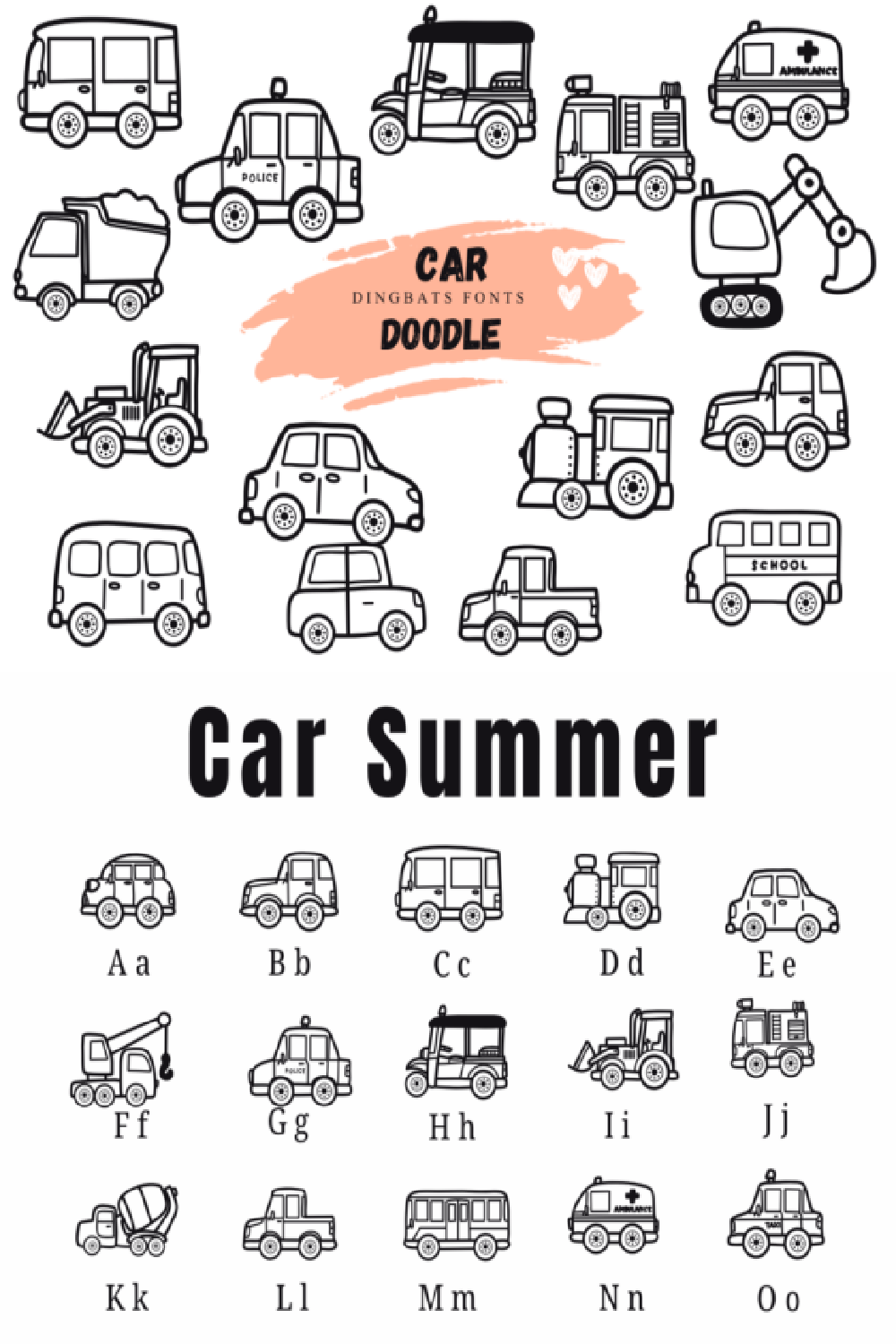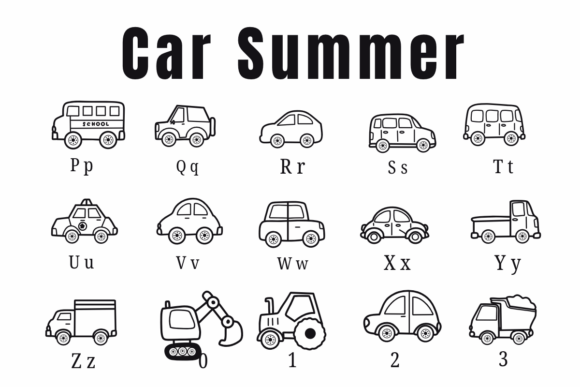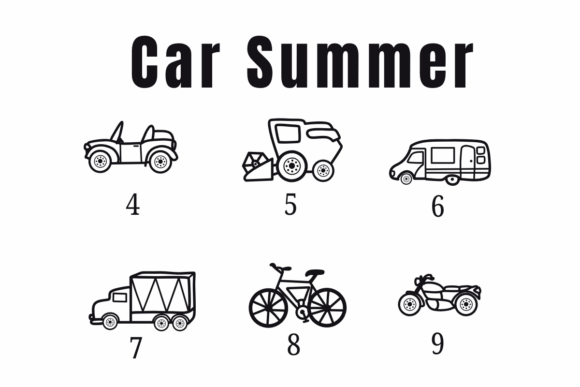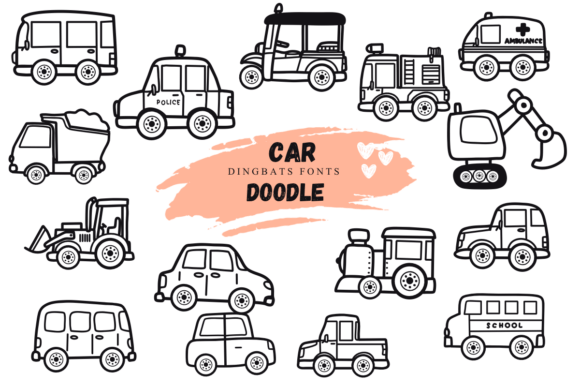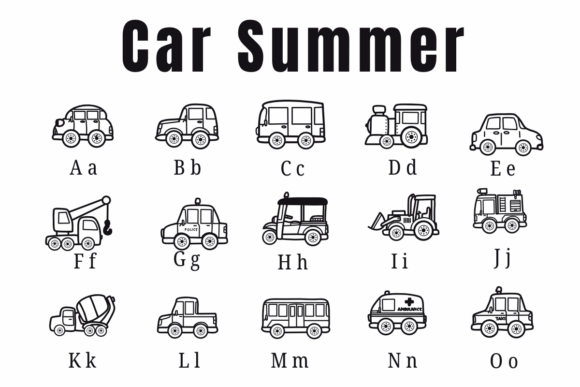
Car Doodle Font: A Playful Dingbats Font for Cricut & DIY Crafts
About the Car Doodle Font
Let us introduce you to Car Doodle Font, where timeless design meets modern craftsmanship. Car Doodle is a dingbats font with a sketch style. This font can enhance your creative projects such as wedding invitations, DIY, crafts, decorations, logos, and many other creative ideas.